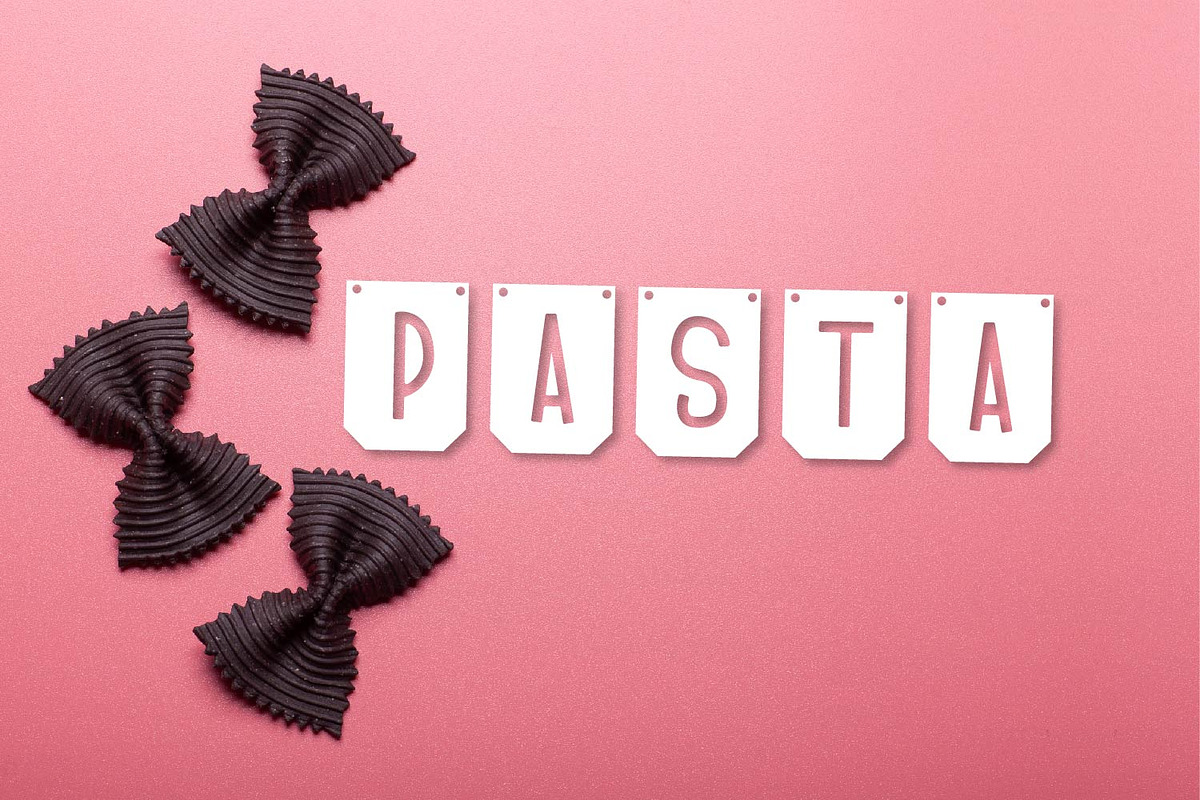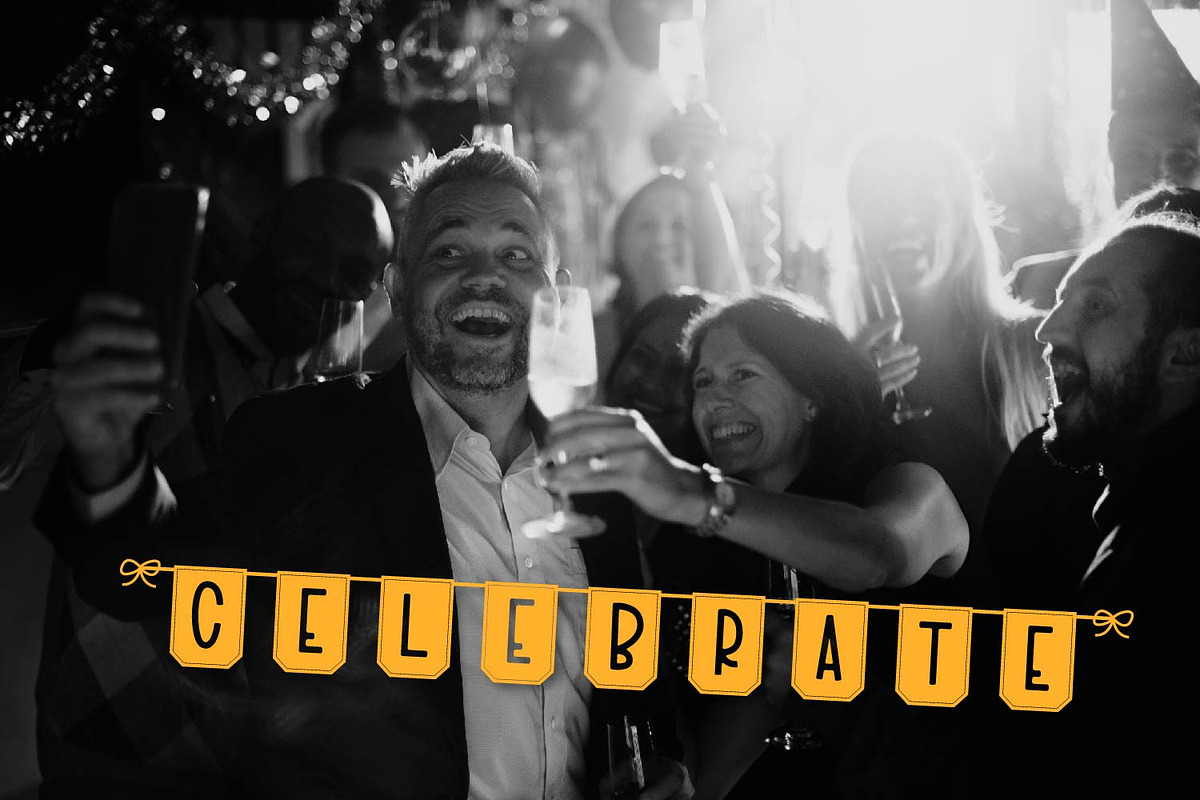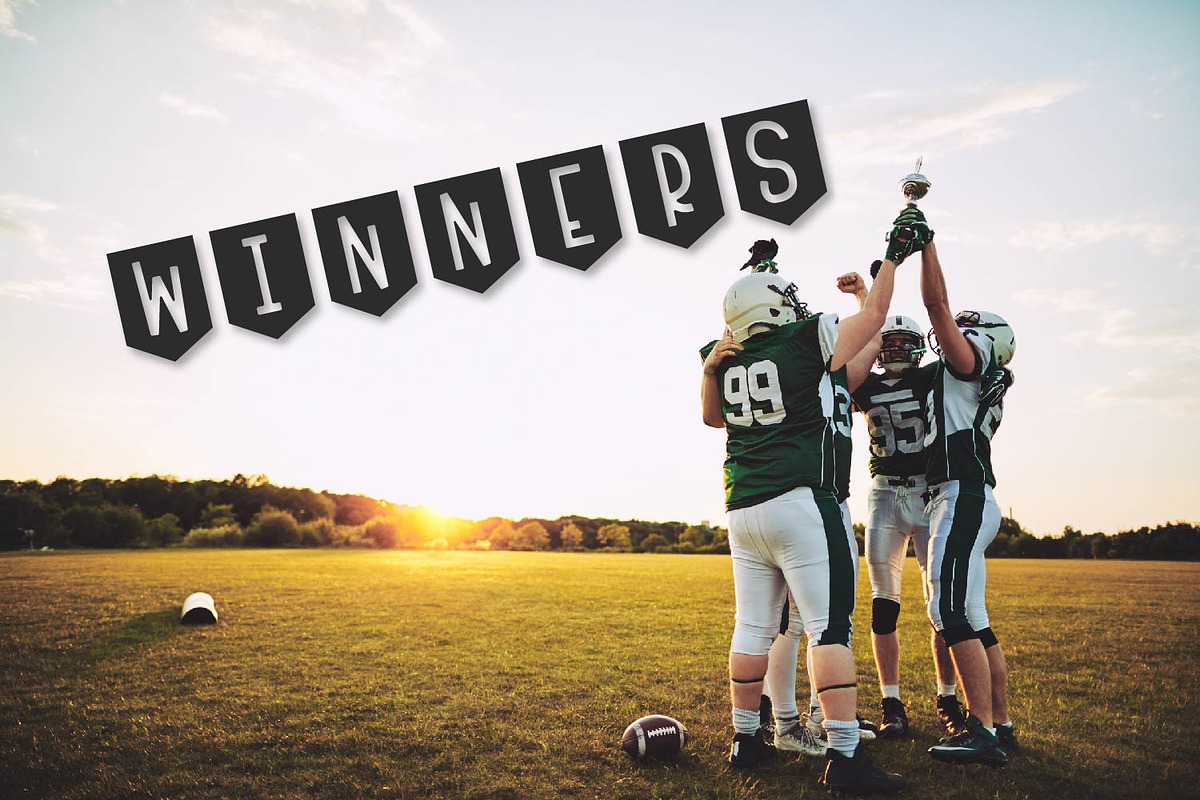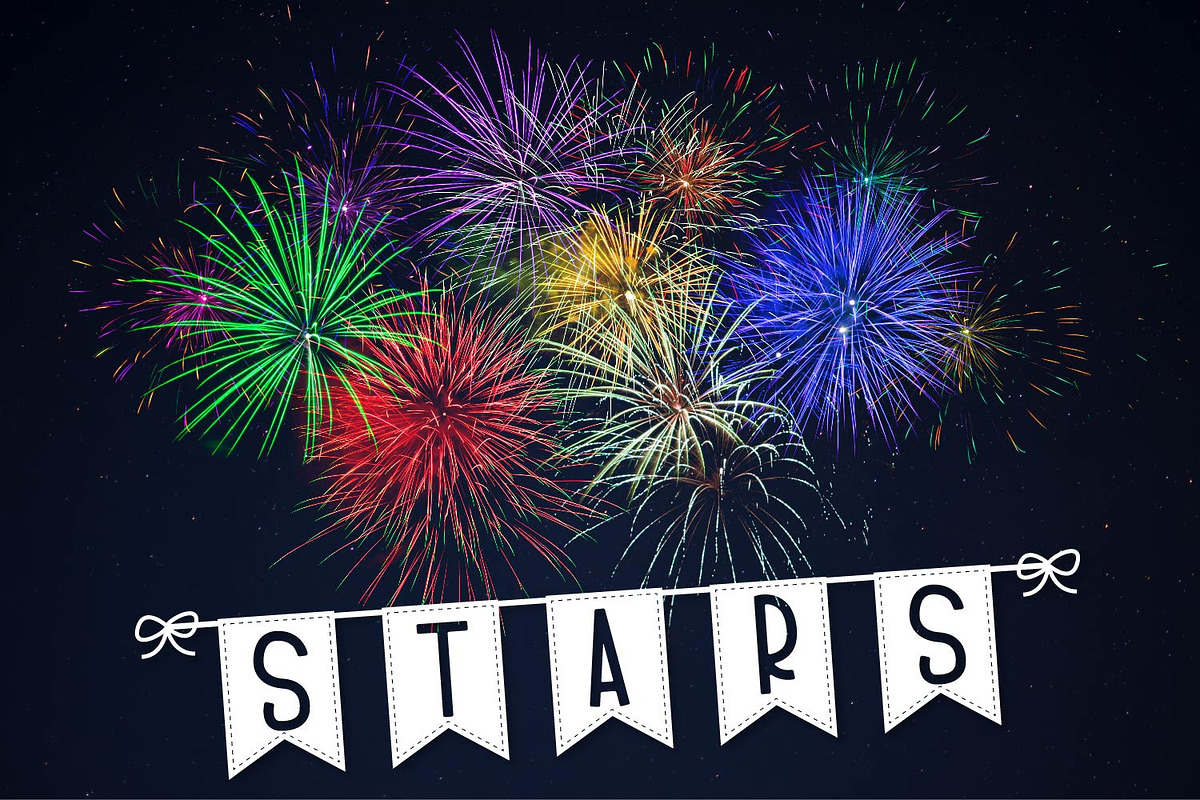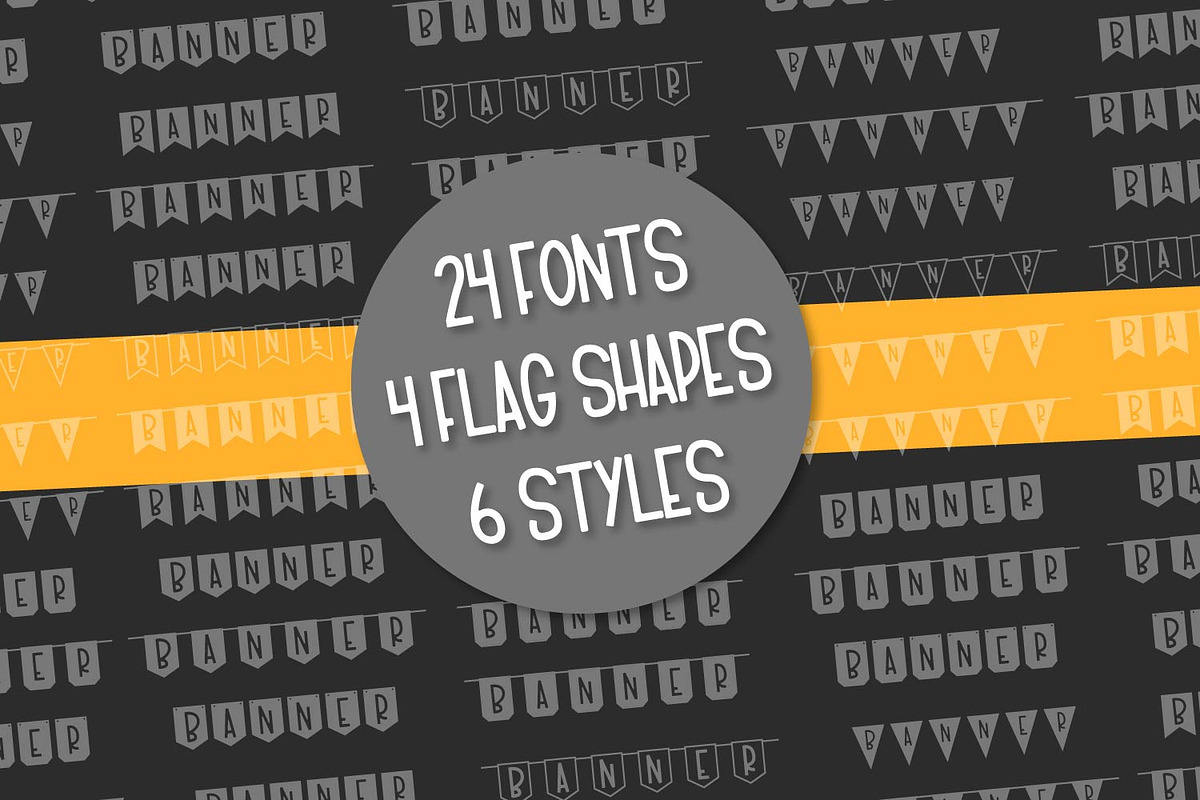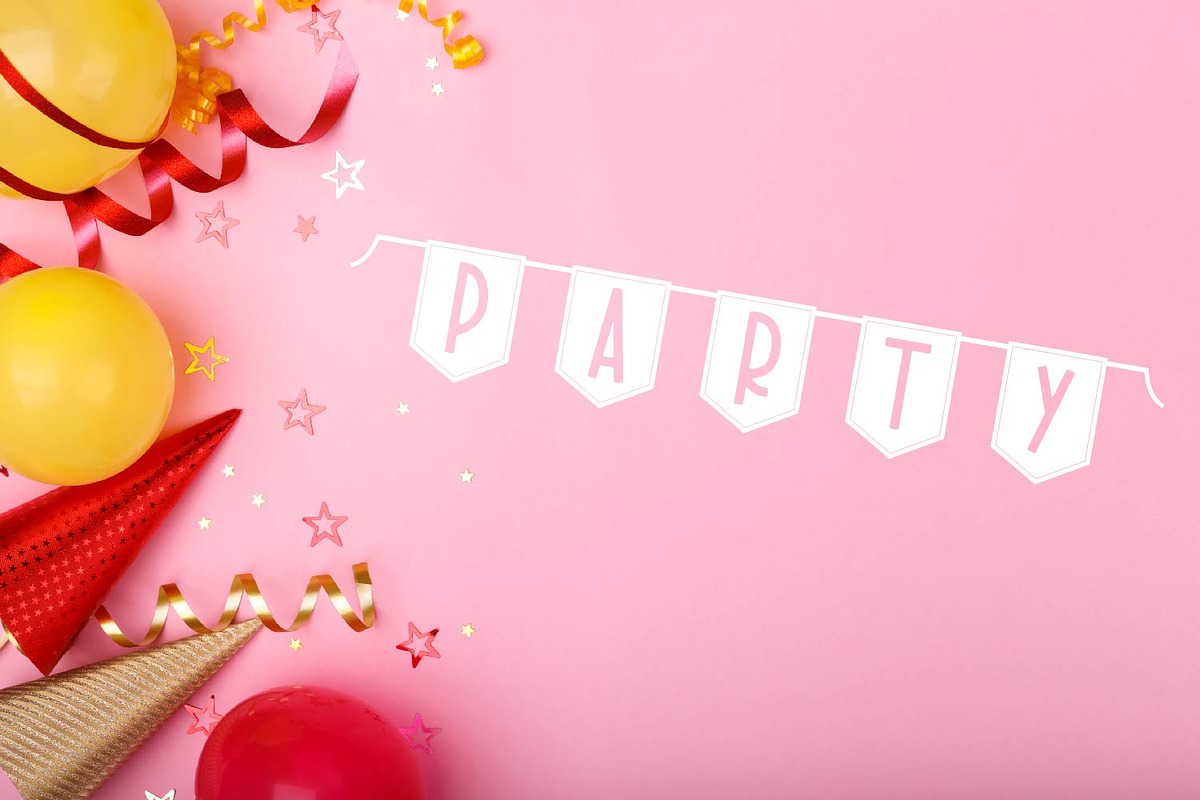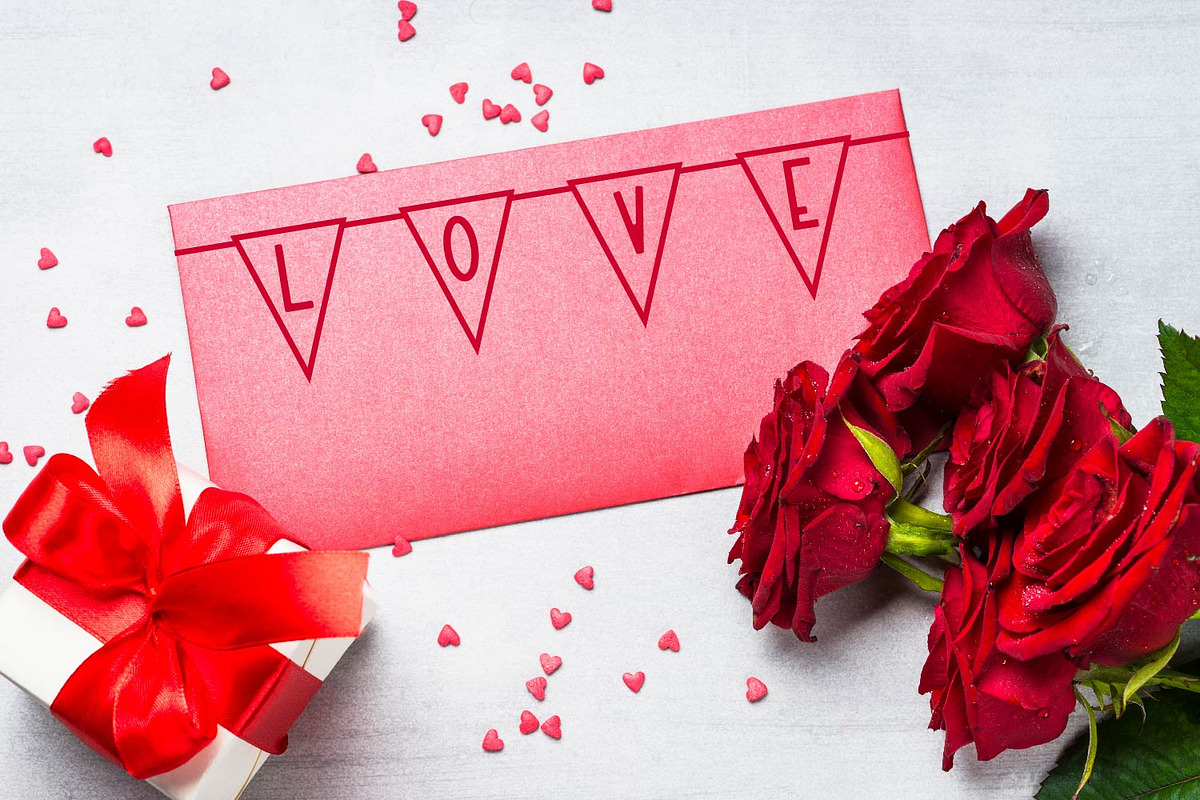
The Big Ole Banner Bundle - 24 Fonts
To create the "ends" of the banners on a string - for bows place the words in parenthesis (blake) for dropped ends use brackets - [blake] For straight lines (also spaces) use } - blake}
For a blank bunting on each font use